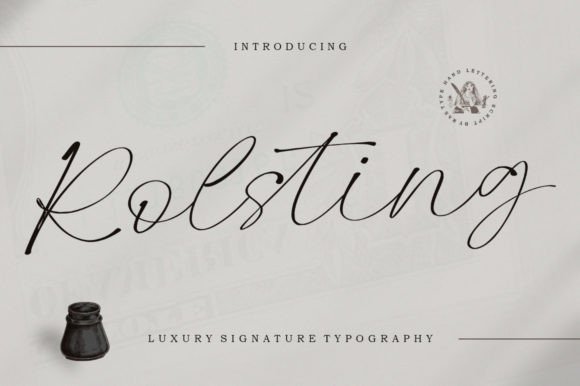
Behold the Enthralling Rolsting Font: A Symphony of Sophistication and Beauty for Design Grandeur
Adorn your creative endeavors with the exquisite beauty of Rolsting, a script font that exudes elegance and sophistication at every stroke. Inspired by the charm of handwritten calligraphy, Rolsting is meticulously crafted to bestow a sense of effortless artistry upon your designs. Its flowing cursive characters dance across the page, creating a visual symphony that captivates and enthralls.
Immerse yourself in the world of high-end branding, where Rolsting reigns supreme. With its refined aesthetic, this font elevates logos, business cards, and promotional materials to new heights of distinction. Its graceful curves and intricate details demand attention, ensuring that your brand shines brighter than ever before.
Step into the realm of wedding stationery, where Rolsting transforms invitations, menus, and place cards into heirlooms to be cherished for generations. Its delicate flourishes and sweeping strokes evoke a sense of timeless romance, creating a tangible expression of love and commitment.
Unleash the power of editorial design with Rolsting, a font that infuses your words with an aura of sophistication. Its elegant lines and subtle nuances bring depth and character to articles, magazines, and brochures, elevating your content to new levels of engagement.
Explore the boundless potential of Rolsting, a font that ignites creativity and fuels imagination. Its versatility extends to posters, flyers, social media graphics, and web design, allowing you to weave its captivating allure into every aspect of your visual communication.
With Rolsting, the possibilities are endless. Experience the joy of creating designs that resonate with your audience, leaving a lasting impression of elegance, sophistication, and artistry. Let Rolsting be your guide into a world where beauty and creativity intertwine.